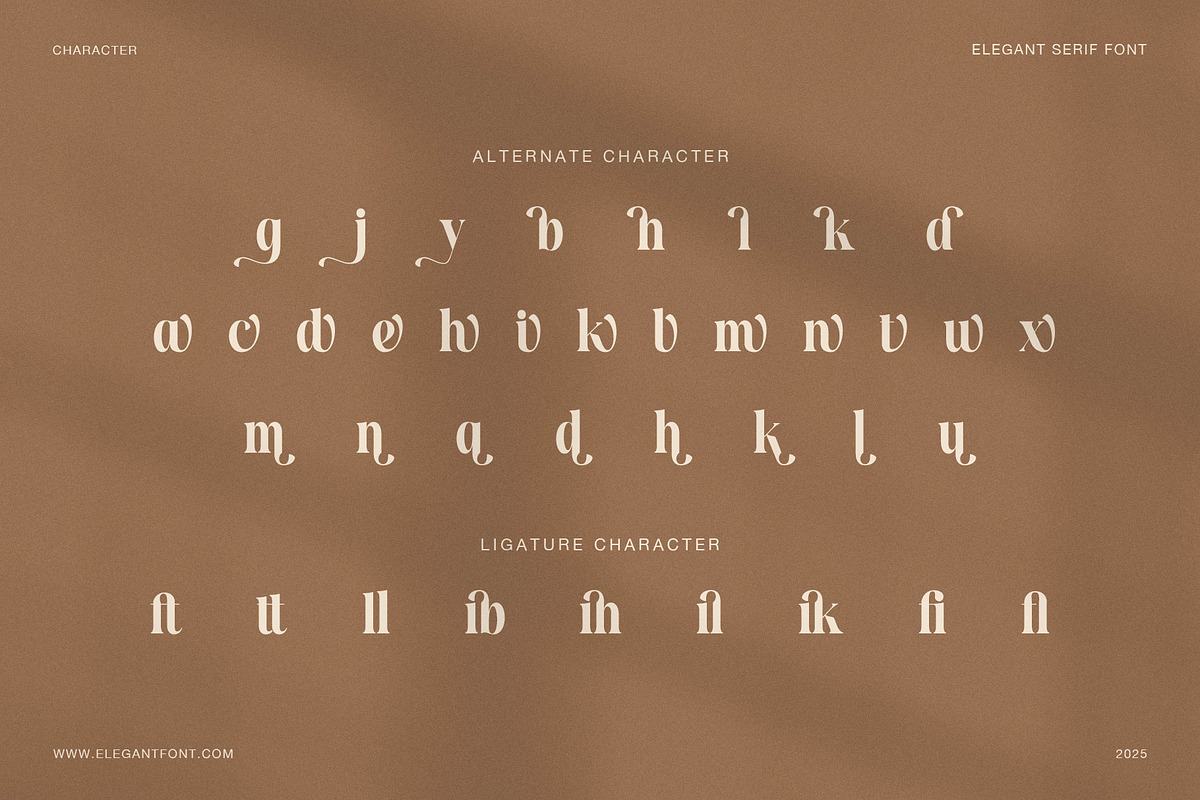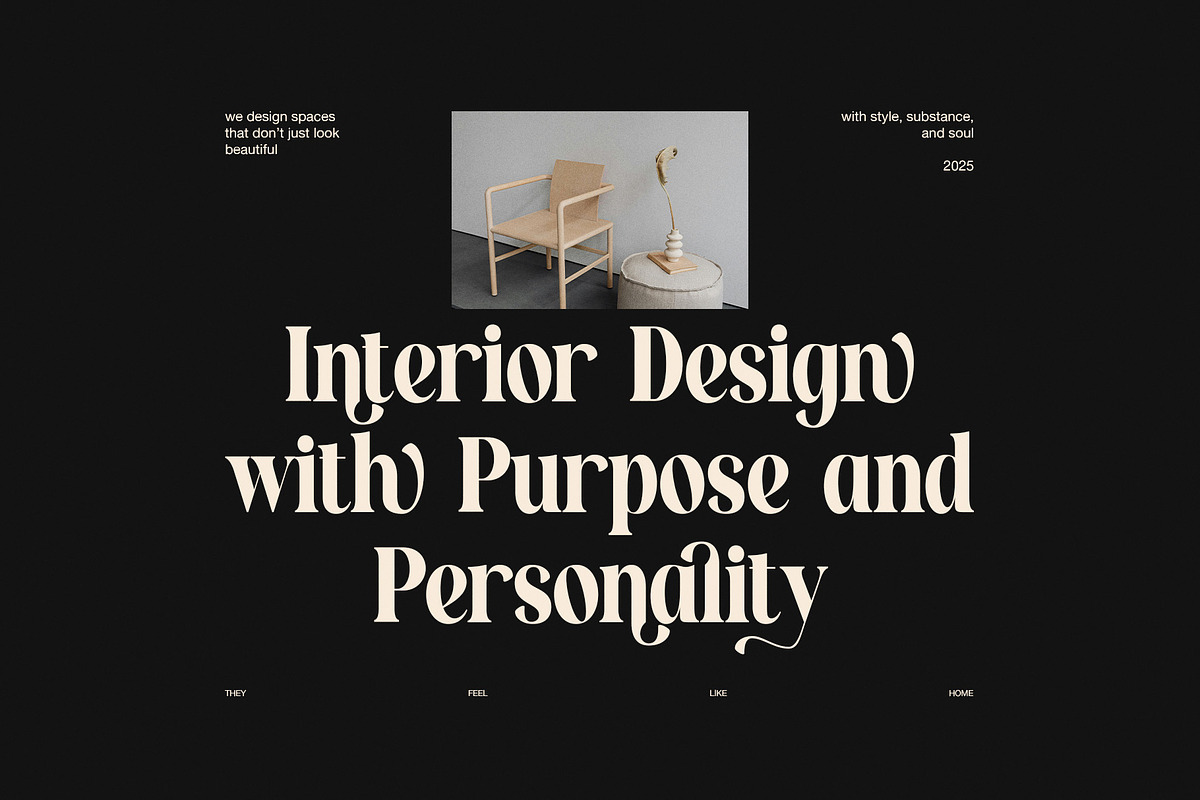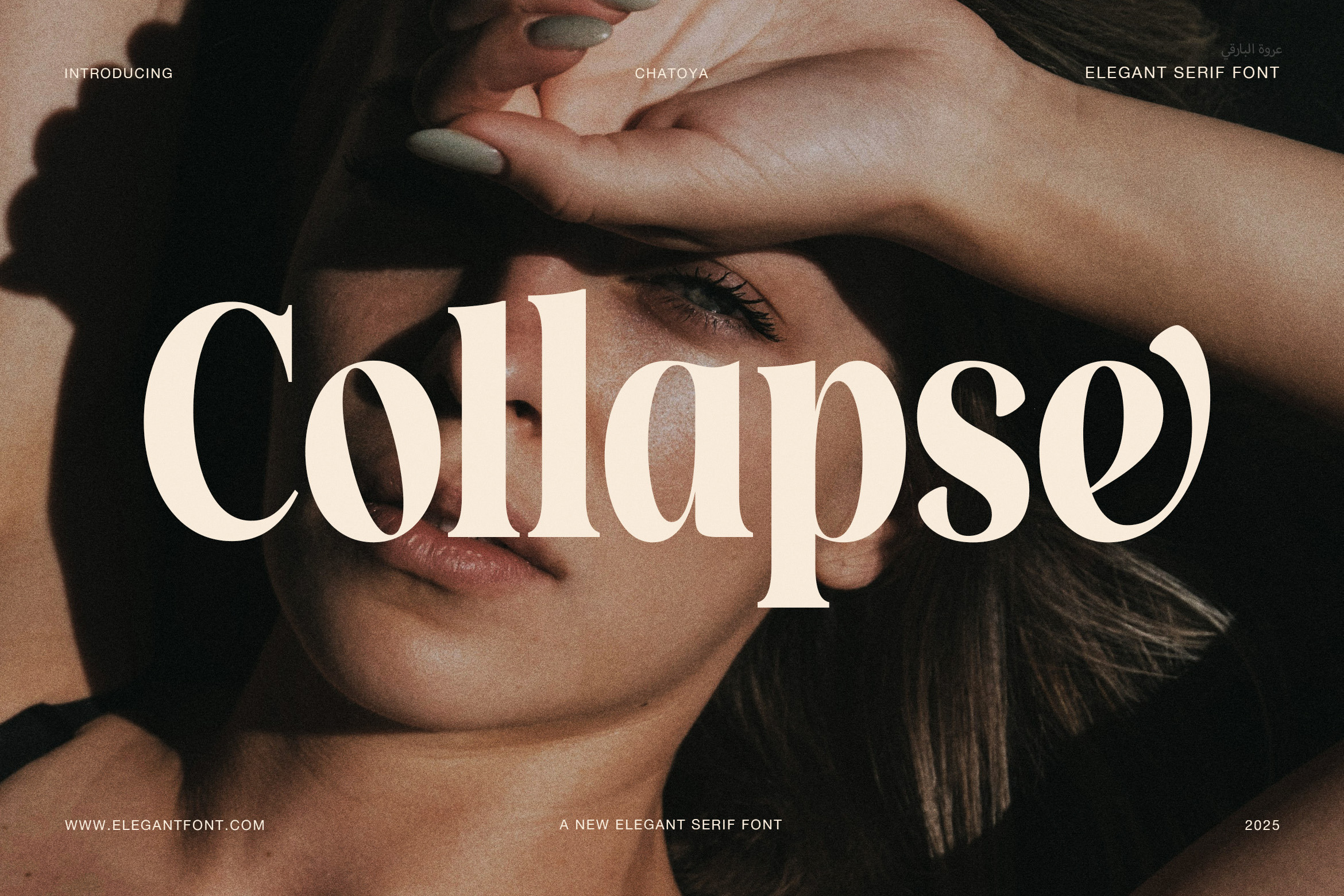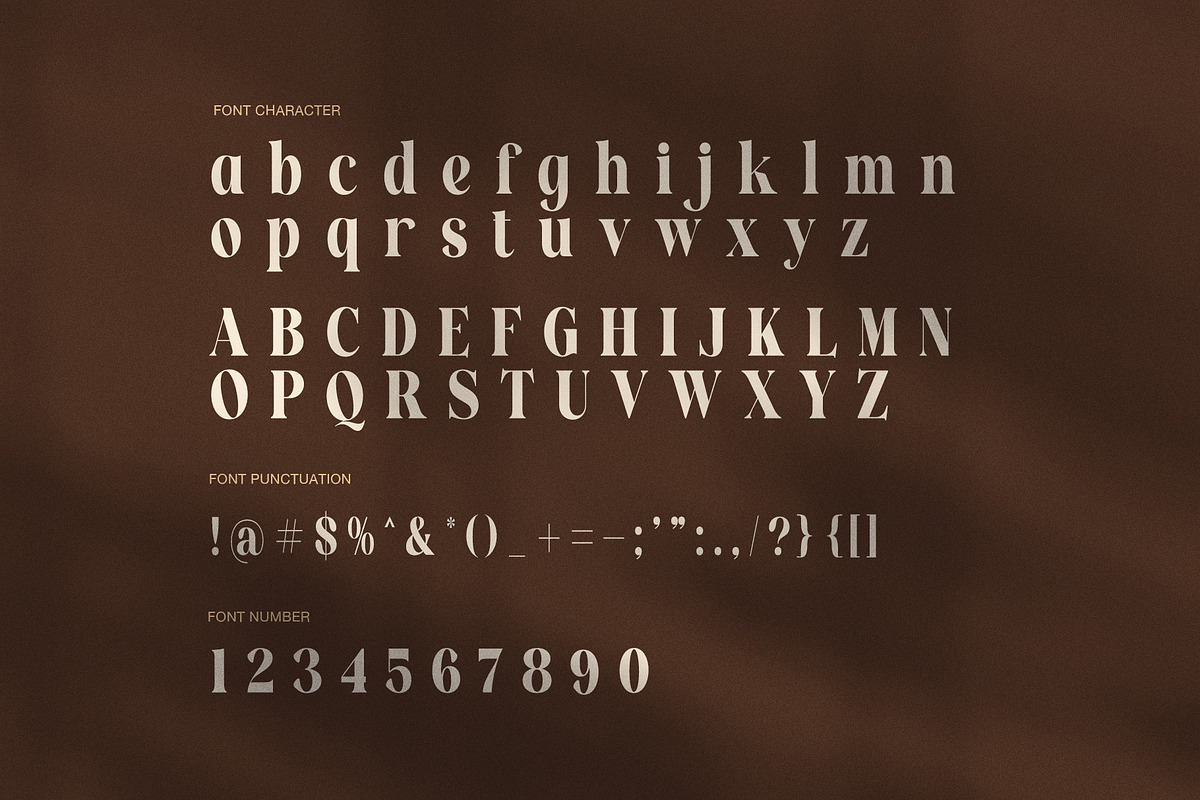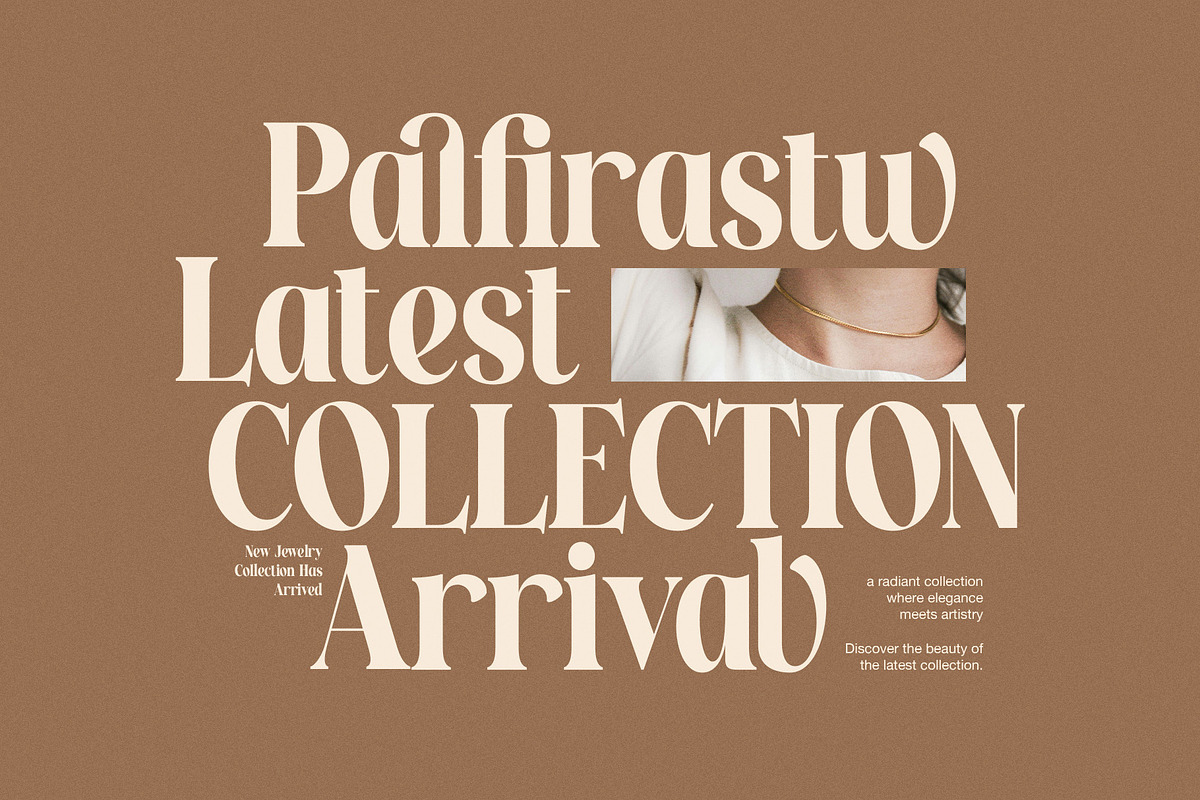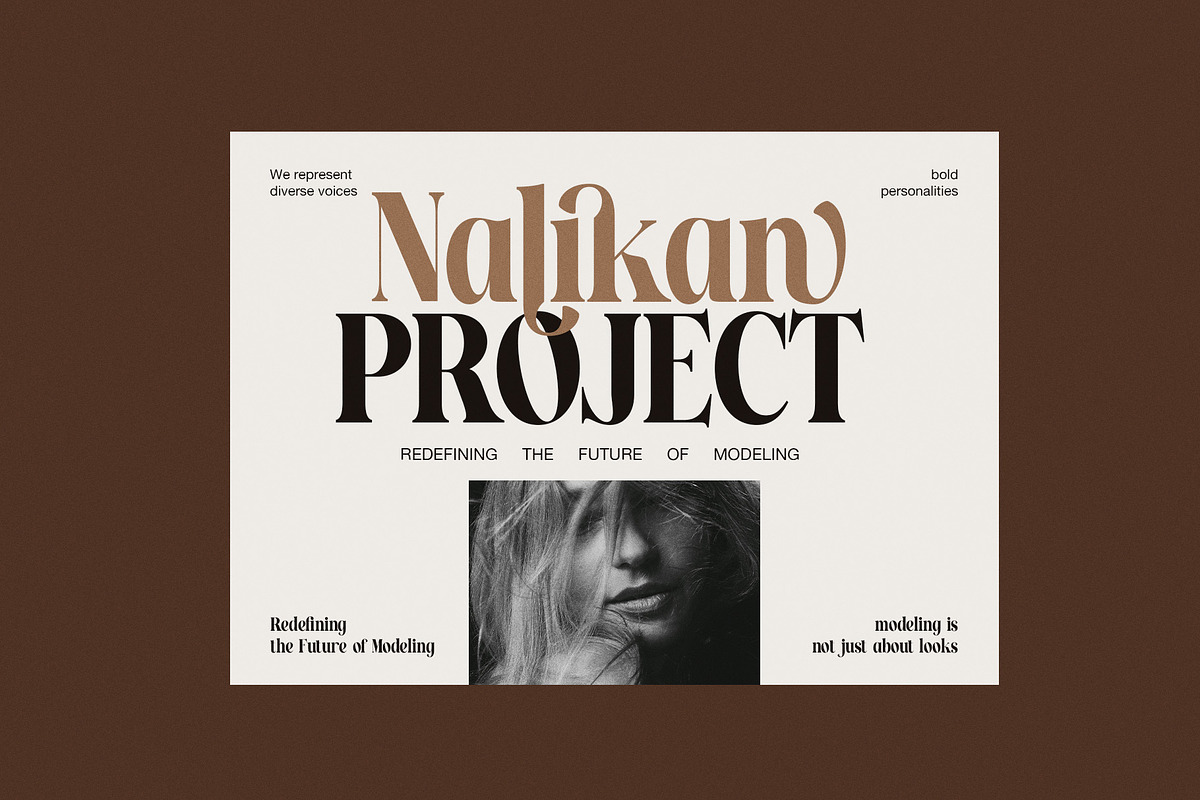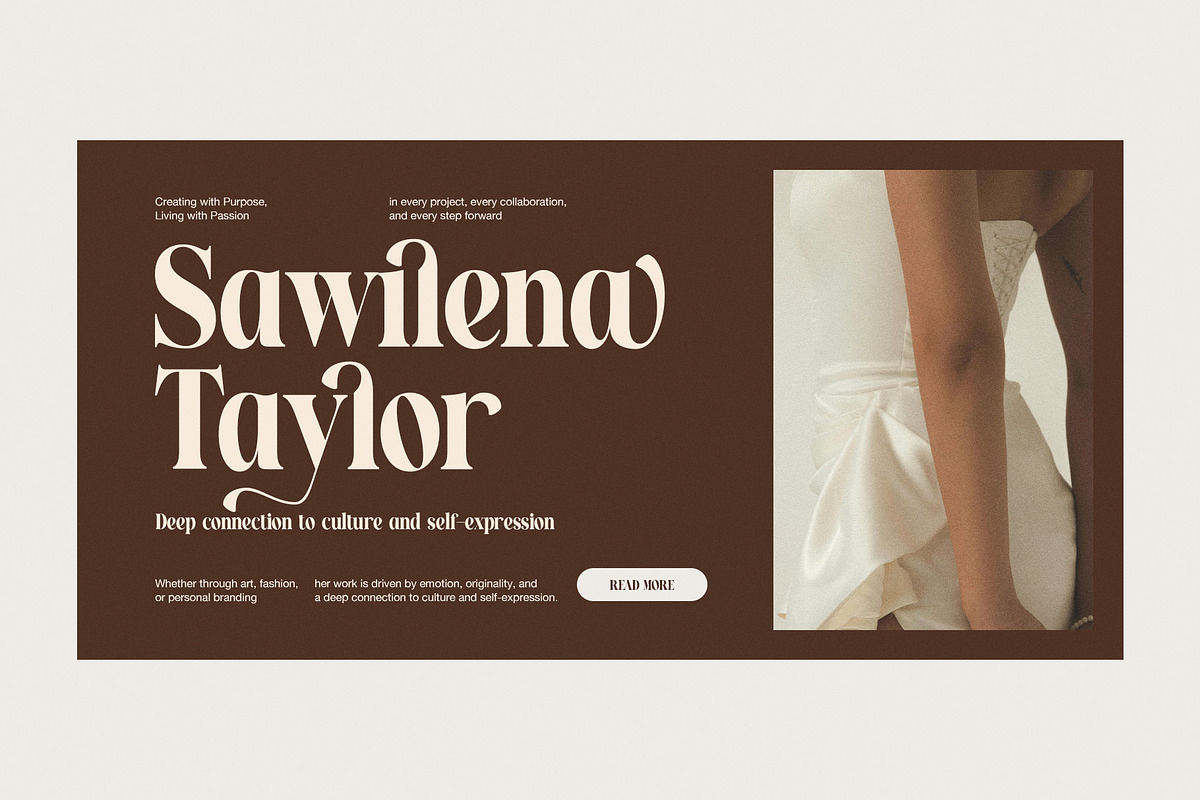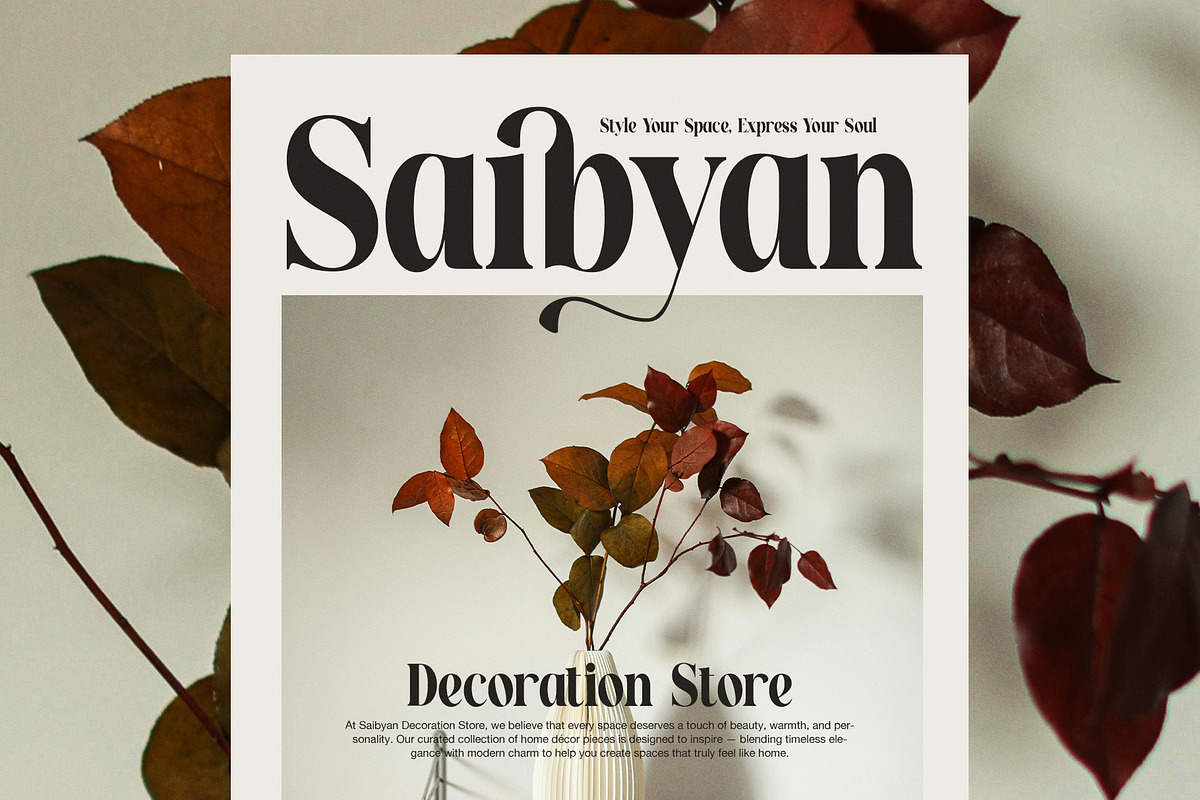
Collapse Elegant Serif Font
Collapse is an elegant serif display font designed to express strength, emotion, and refined sophistication. Built with bold letterforms and graceful curves, this font blends modern confidence with timeless elegance. As a result, Collapse delivers a powerful visual presence while maintaining balance and clarity.
Each character in Collapse is carefully crafted with smooth transitions and strong contrast. The letterforms feel expressive yet controlled, allowing headlines to stand out without feeling heavy. Because of this balance, the font performs beautifully in large display settings, especially where typography becomes the main visual element.
Collapse includes alternate characters and refined ligatures that allow designers to create custom compositions with personality. These features add fluidity and elegance to words, making every layout feel intentional and polished. In addition, the alternates help create unique brand voices while keeping consistency across designs.
This elegant serif display font is ideal for fashion branding, editorial layouts, interior design presentations, and luxury marketing materials. Whether used for magazine covers, boutique websites, or lifestyle campaigns, Collapse communicates confidence and taste. Furthermore, its bold structure pairs perfectly with photography, neutral palettes, and cinematic lighting.
Collapse works reliably across both digital and print formats. Because of its clear proportions and thoughtful spacing, the font remains readable at various sizes. Designers can confidently use it for posters, websites, lookbooks, packaging, and premium brand identities.
Elegant serif display style with bold presence
Stylish alternates for expressive typography
Decorative ligatures for smooth word flow
Strong contrast with refined curves
Clean construction for professional projects
Fashion and lifestyle branding
Editorial and magazine design
Interior and architecture presentations
Boutique logos and packaging
Website headers and promotional layouts
In conclusion, Collapse is more than a serif font. It is a statement typeface created for designers who want elegance, strength, and emotional impact in every design.